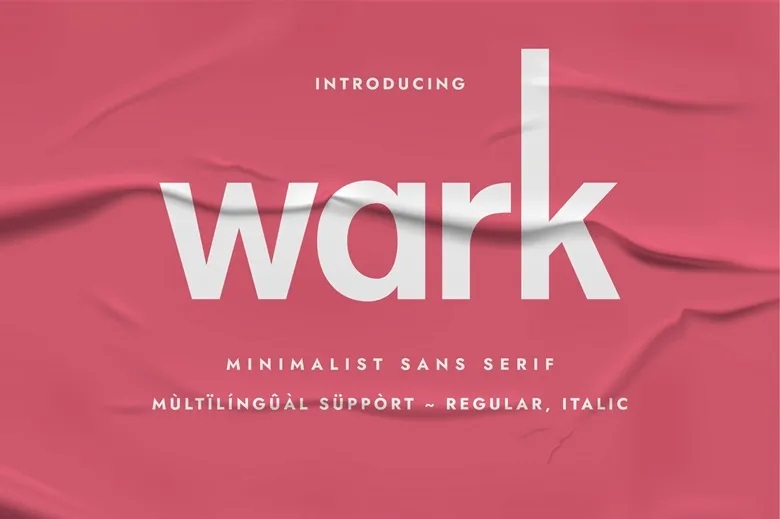
Wark Font
Wark is a clean and modern sans-serif font that works well for a variety of design projects. Try it out on your next creative project and see the difference it can make.
Wark Sans Serif Font